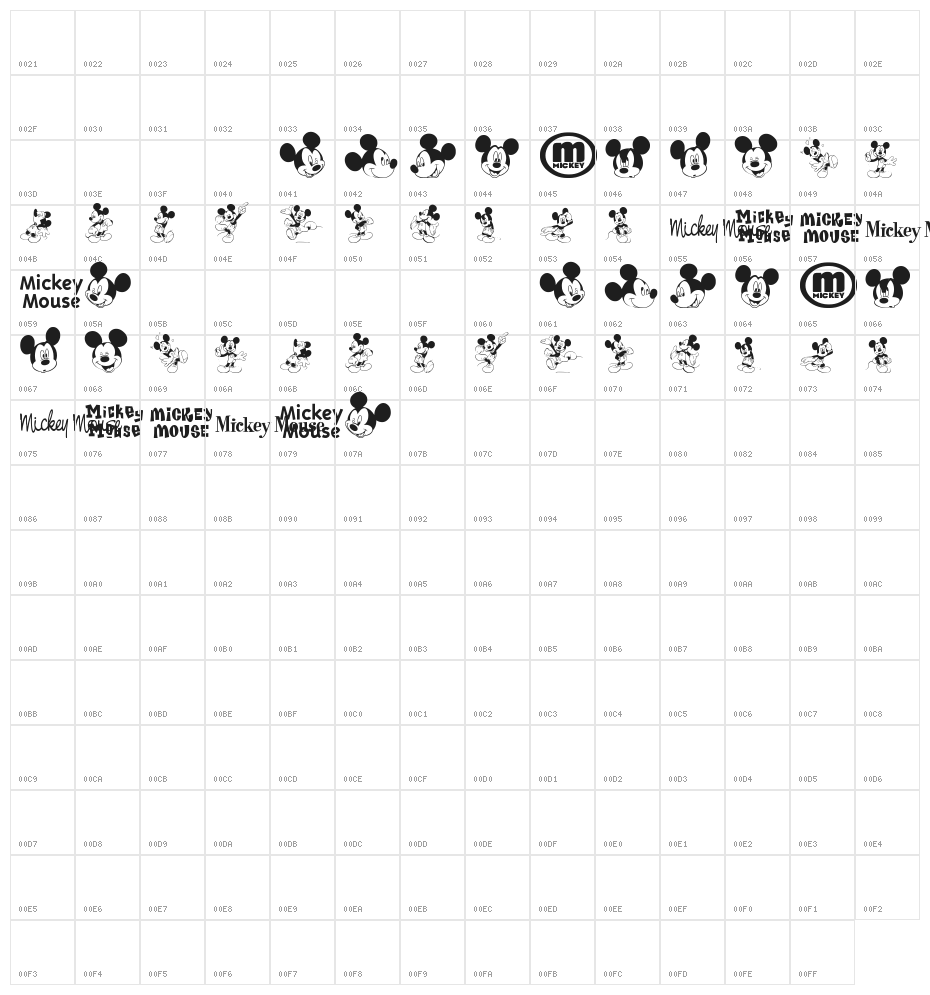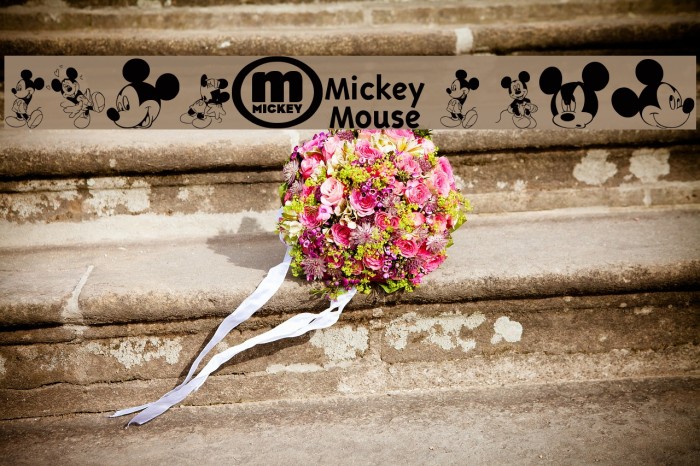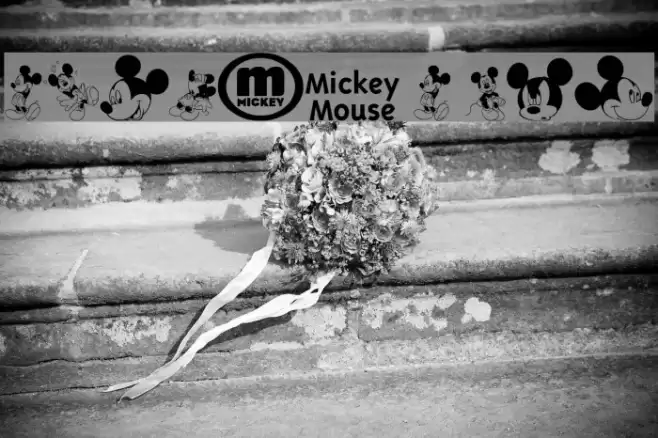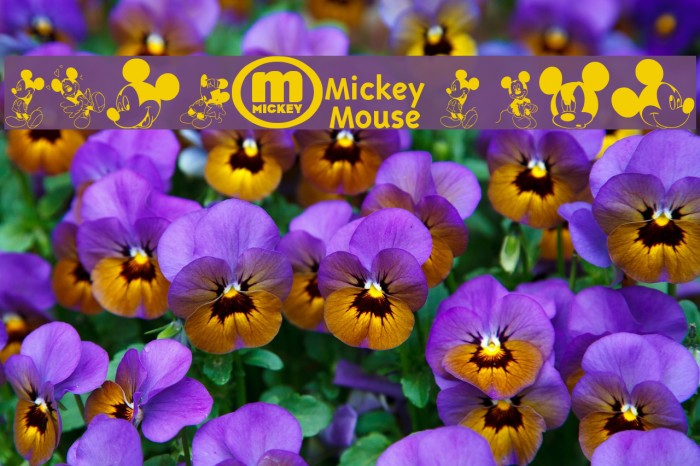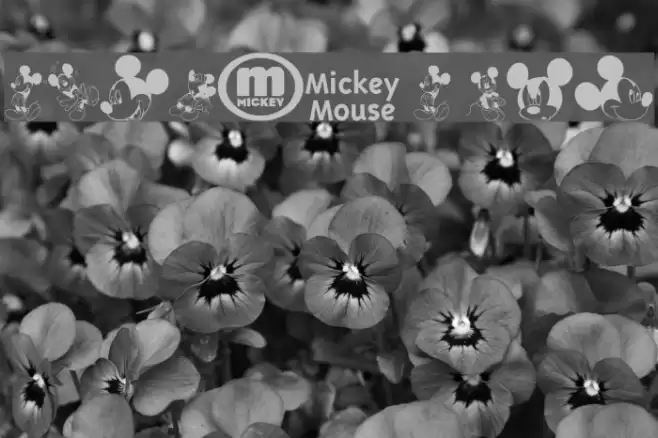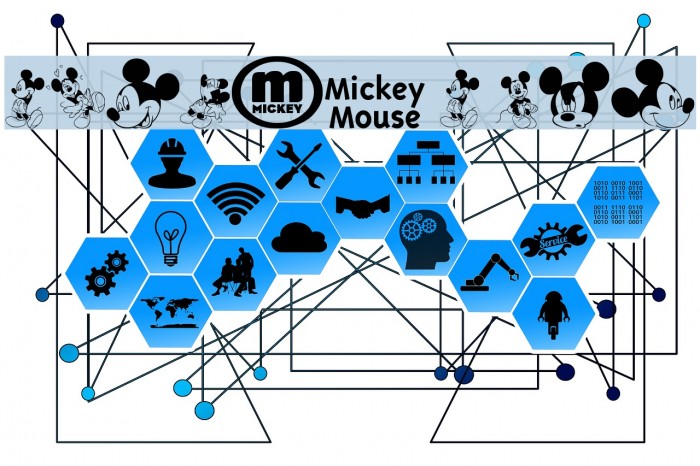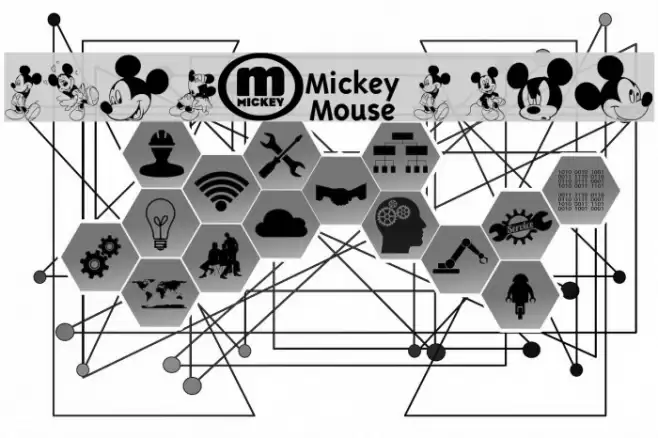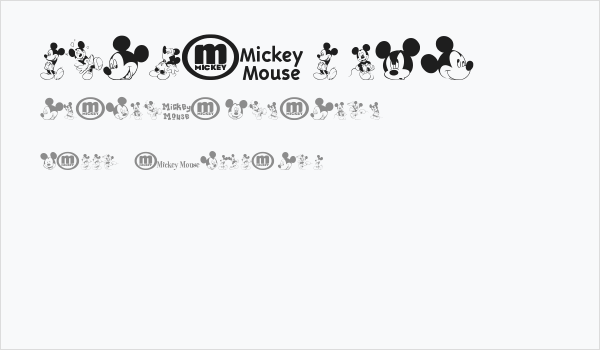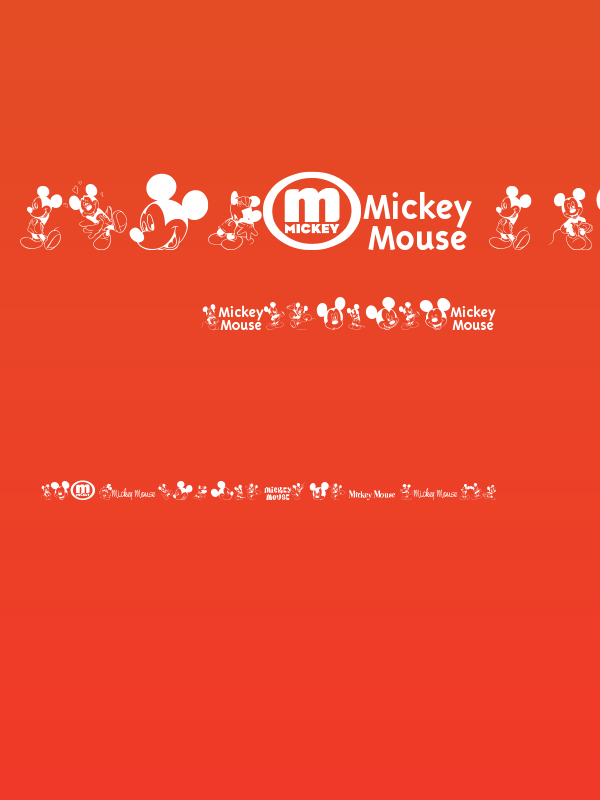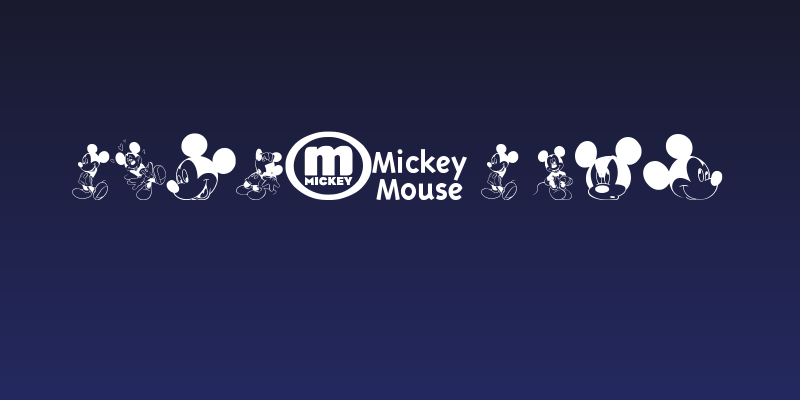
mickey m tfb Font
mickey m tfb Description
This is not a valid font. The image consists of various illustrations and logos related to a well-known animated character, rather than a complete set of typographic characters. The designs include character faces and themed logos, which are decorative and specific to a particular brand or character. These elements are not suitable for general typographic use as they do not include a full alphabet or numerical set.
| Use Case | Logos, Branding, Merchandise |
| Proposed Projects | This design could be used for themed merchandise, branding, or promotional materials related to the character. |